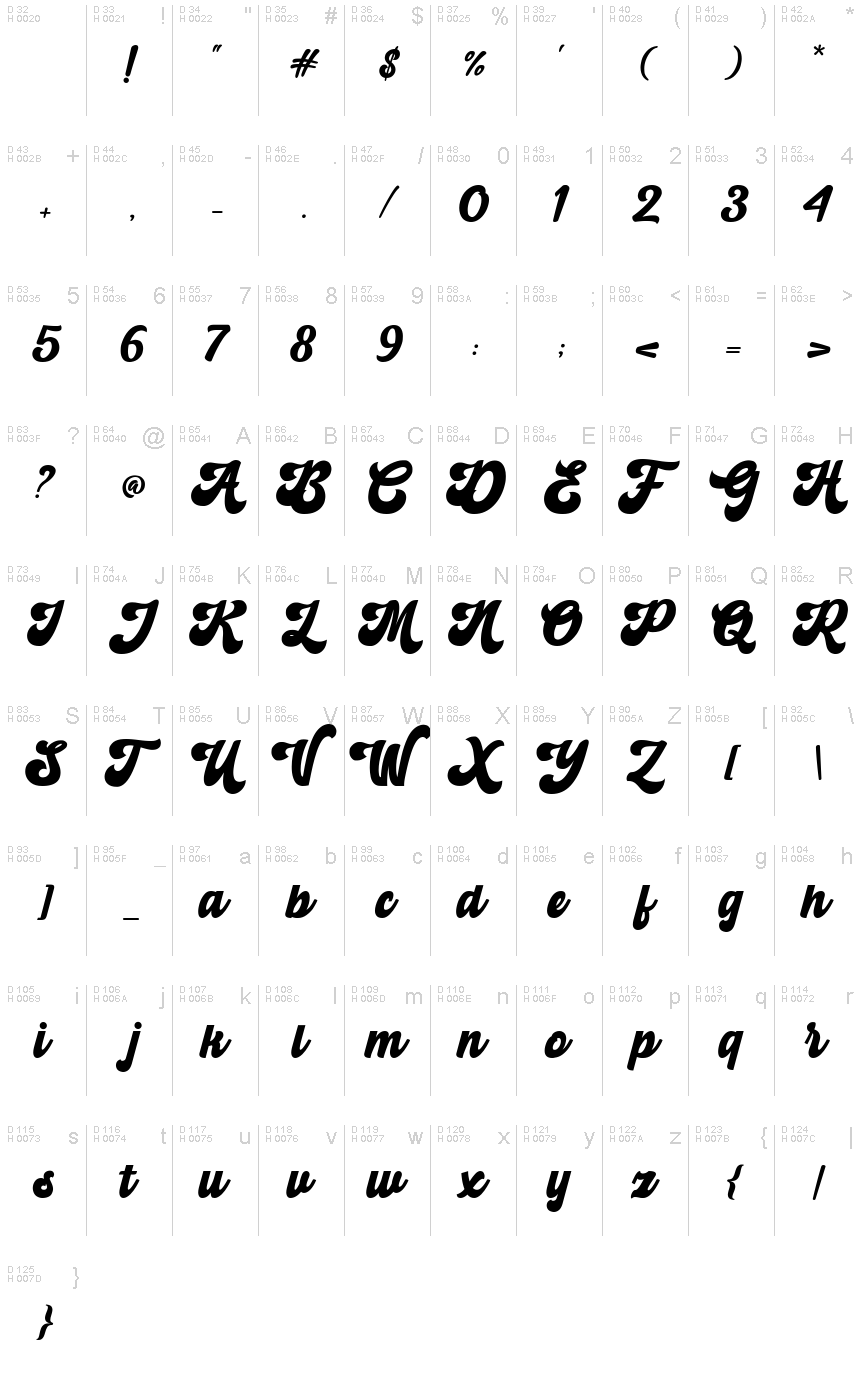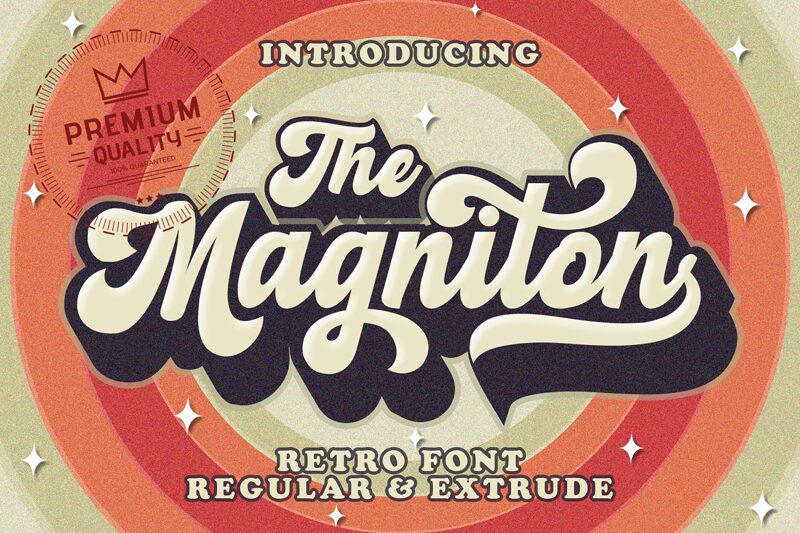
Magniton Demo
Magniton is a retro brush font packing a punch of boldness and charm at the same time. The font’s dynamic hand-crafted feel effortlessly represents classic sign painting, or any other form of fearless, eye-popping typography for that matter. These unique letterforms combined with natural-looking brush strokes give the design an evergreen sophistication tinged with nostalgia — perfect for any creative project you can imagine.
Magniton is versatile enough to be used in many different types of designs — from attention-grabbing logos and hard-hitting headlines through vintage-inspired branding to retro-style editorial layouts. Its expressive weight makes it particularly suitable for projects aimed at suggesting heritage value or authenticity with just a hint of daring ’70s-themed swagger.